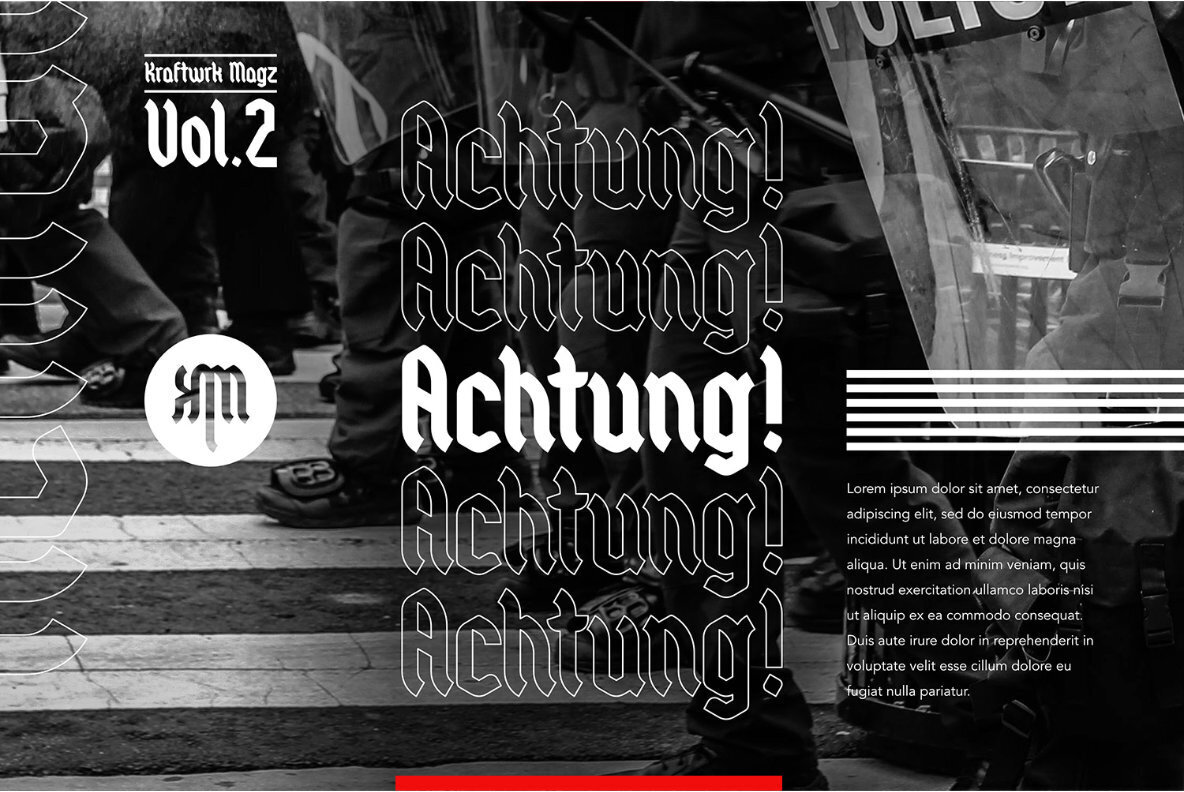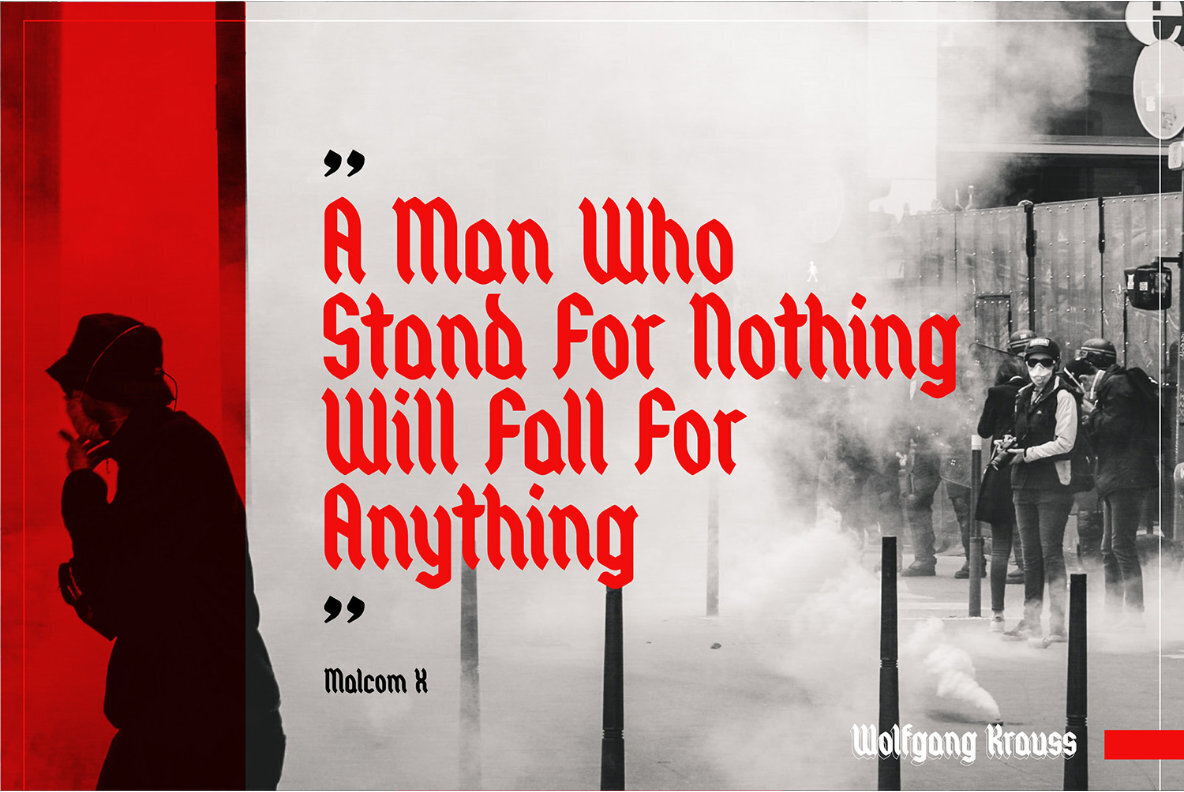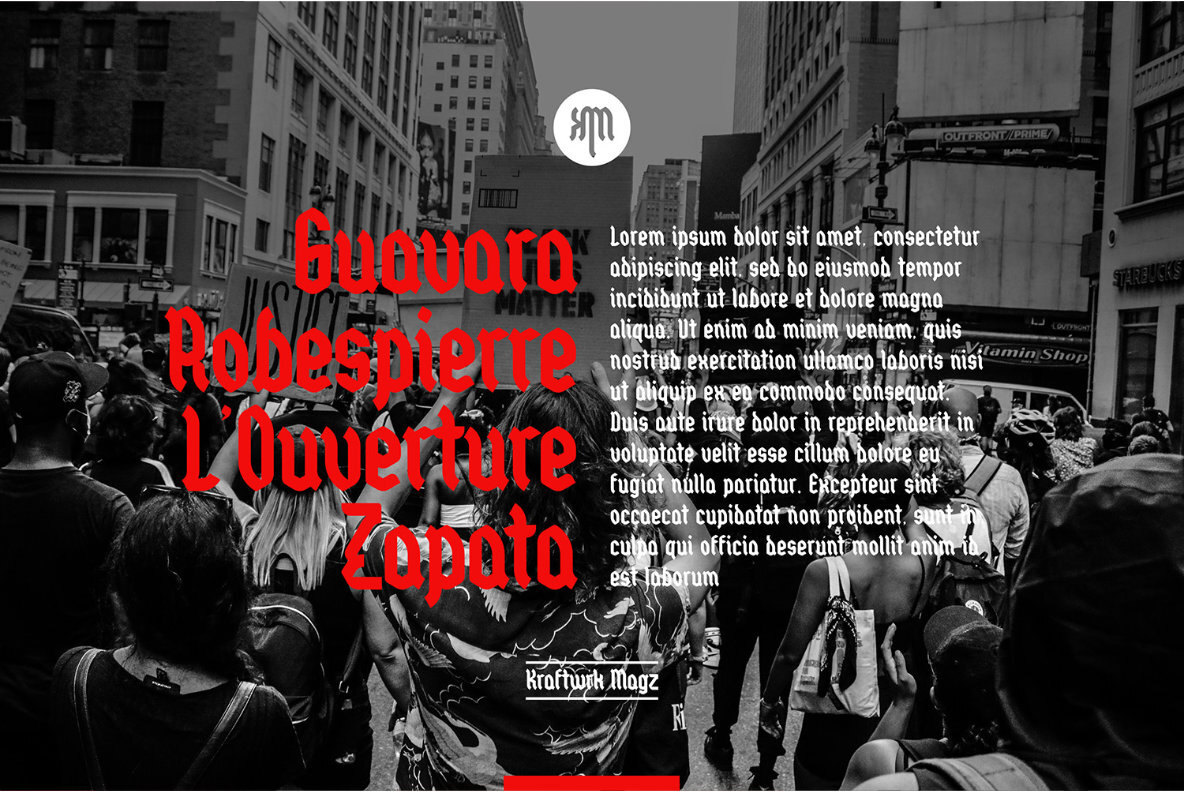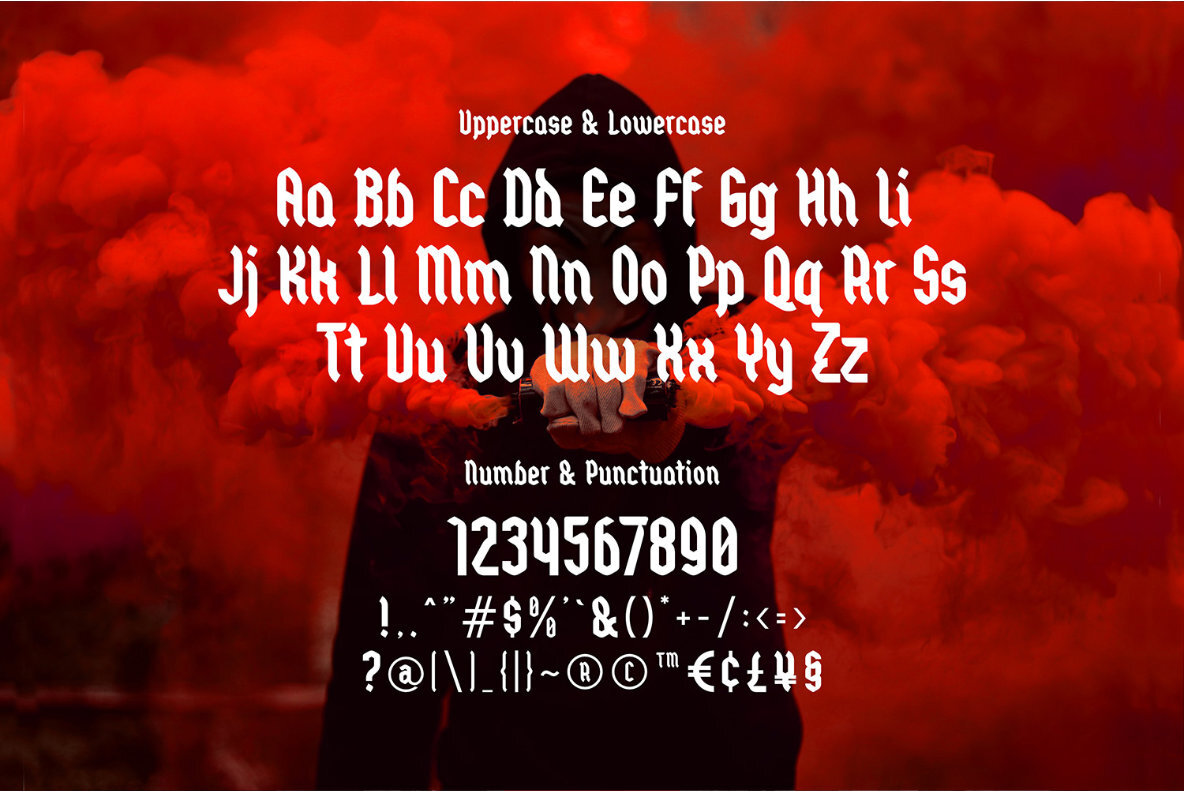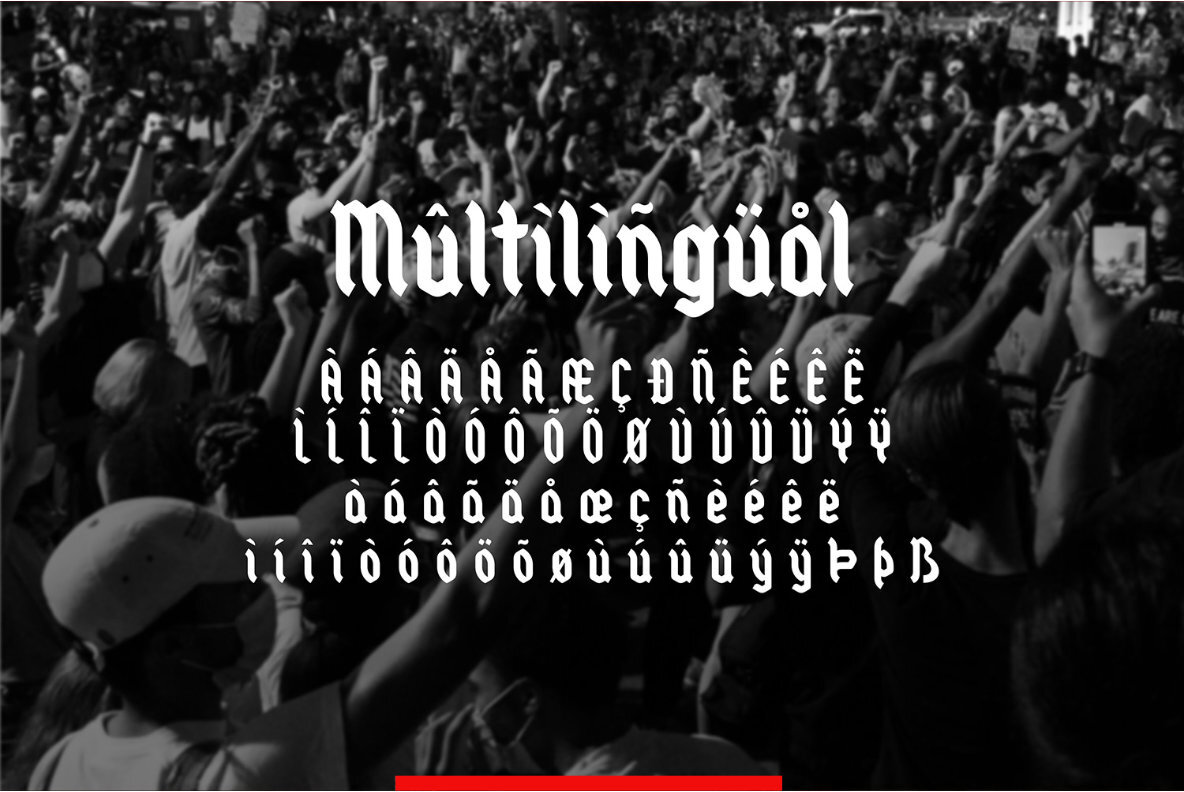
Wolfgang Krauss Font
Introducing Wolfgang Krauss - Modern Fraktur Typeface, created by ikiiko.
A simple blackletter type with mood of modern fraktur style. This typeface is perfect for an poster event, stencil, hipster magazine, fashion stuff, T-shirt design, tote bag design, quotes, and so much more.
:: Uppercase & Lowercase
:: Number & Punctuation
:: Multilingual Support